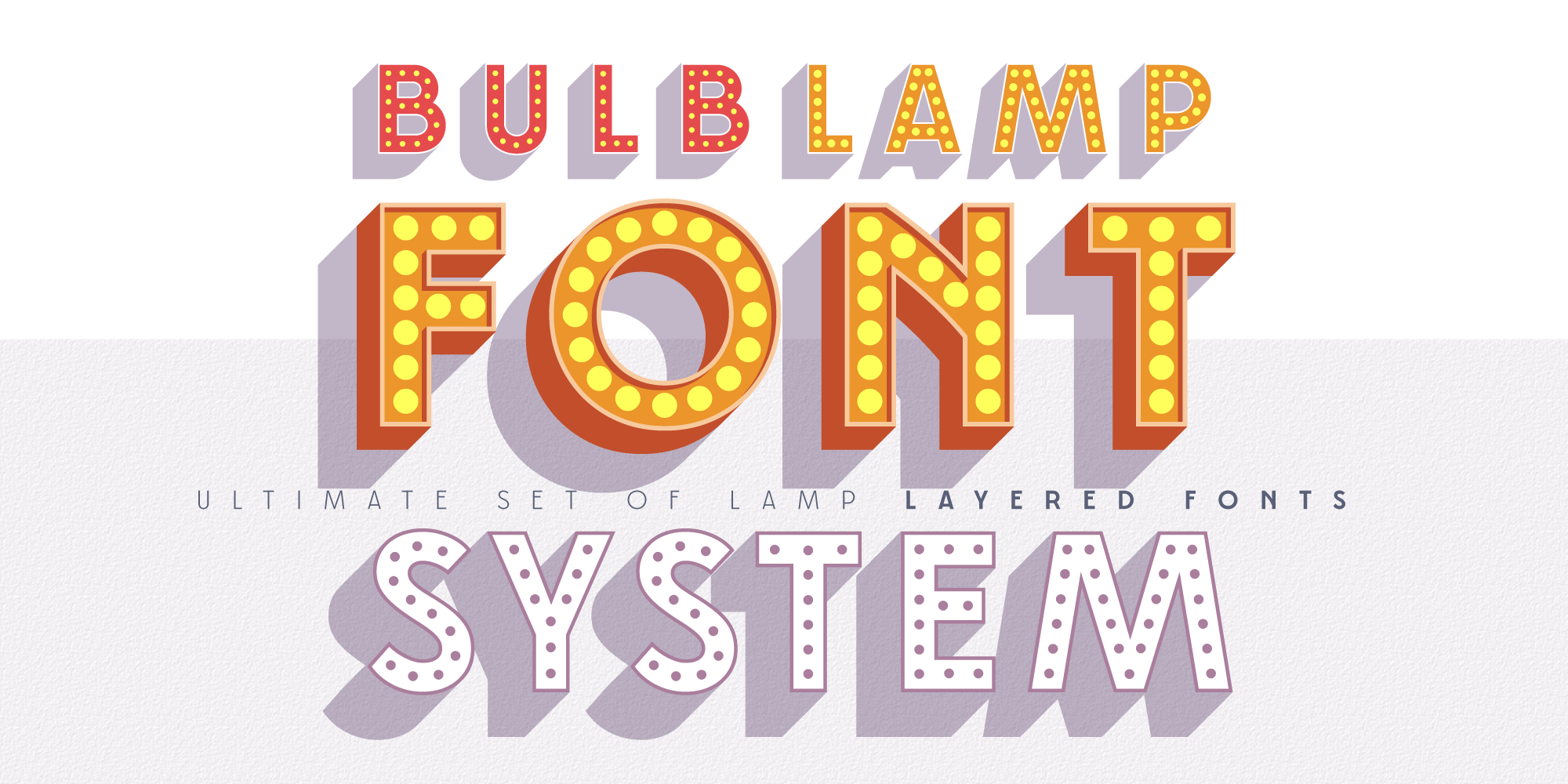
Bulblamp Font is perfect for vintage lighting stores, retro café signage, creative innovation agencies, brainstorming session materials, electrical supply companies, antique light fixture brands, idea-focused startups, Edison bulb restaurants, vintage industrial design firms, and bright inspiration-themed designs.
Bulblamp Font is exciting because it illuminates creativity and bright ideas through glowing letterforms that capture the warm nostalgic charm of vintage light bulbs and the eureka moment of brilliant inspiration, making it perfect for brands celebrating innovation, creativity, and the bright spark of human ingenuity.
The Bulblamp Font family includes regular and bold weights with illuminated alternates, vintage electrical ornaments, and bright idea decorative elements, providing designers with brilliant tools for creating typography that shines with authentic inspiration and creative energy.
When your project needs creative illumination and bright innovation appeal, Bulblamp Font Free Download provides the perfect typographic light bulb for inspiring communications. This brilliant display typeface combines vintage electrical charm with contemporary functionality, ensuring your brands resonate with audiences seeking genuine creativity and innovative thinking. The glowing letterforms and bulb-inspired styling make this font an essential choice for creative agencies, innovation companies, and any application where bright ideas, creative inspiration, and innovative thinking are crucial for establishing credibility and connecting with communities that value the transformative power of human creativity and the brilliant moments when great ideas illuminate new possibilities and light the way forward to innovative solutions.